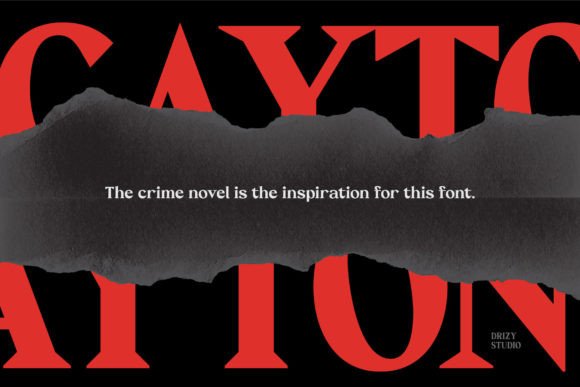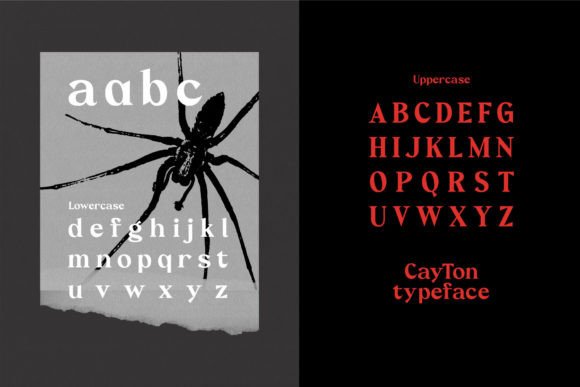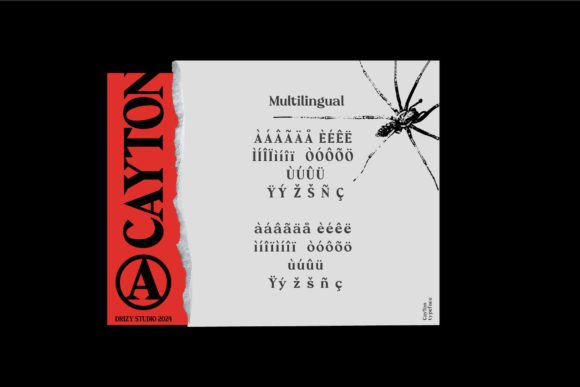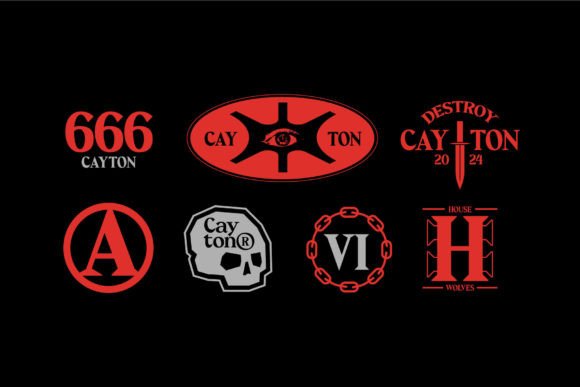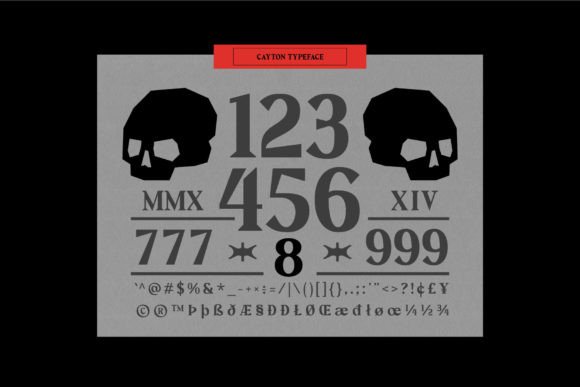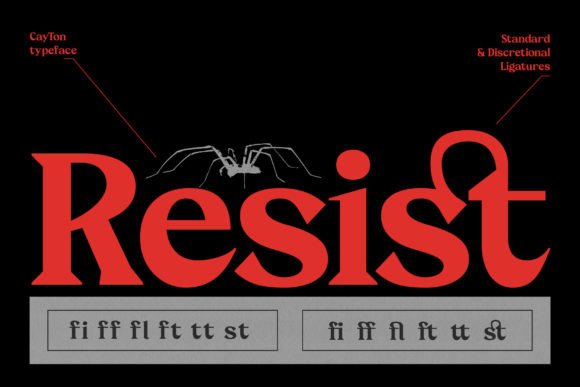
Cayton Font: Unleash the Timeless Elegance of Noir Crime Serif
In the realm of typography, few fonts manage to evoke the essence of a bygone era as effectively as Cayton. This vintage sharp serif font is an ode to the classic noir crime novels and cinematic masterpieces that have captivated audiences for decades. With its distinctive letterforms and sharp serifs, Cayton exudes an aura of suspense and sophistication, making it the perfect typeface for designers and crafters seeking to infuse their projects with a touch of noir elegance.
The Inspiration Behind Cayton
Cayton draws inspiration from the iconic typography of the 1940s and 1950s, an era when film posters, book covers, and pulp magazines often featured bold, serif fonts that commanded attention. The font’s design is reminiscent of the classic crime novels of Raymond Chandler and Dashiell Hammett, as well as the cinematic masterpieces of film noir. Cayton’s creators aimed to distill the essence of this bygone era into a modern font that would be both nostalgic and versatile.
Cayton’s design is characterized by its sharp serifs, distinctive letterforms, and elegant lines. The font features:
- Sharp Serifs: Cayton’s serifs are sharp and refined, adding a touch of sophistication to any design.
- Distinctive Letterforms: The font’s letterforms are uniquely designed to evoke the essence of classic crime novels and film noir.
- Elegant Lines: Cayton’s lines are smooth and elegant, making it perfect for designs that require a touch of refinement.
Use Cases for Cayton
Cayton is an incredibly versatile font, suitable for a wide range of design projects, including:
- Film and Theater Posters: Cayton’s noir-inspired aesthetic makes it perfect for promoting films, plays, or musicals with a vintage or crime-themed twist.
- Book Covers: The font’s classic, sophisticated look is ideal for book covers, particularly for crime novels, thrillers, or historical fiction.
- Branding and Packaging: Cayton’s unique blend of elegance and sophistication makes it suitable for luxury brands, high-end products, or bespoke services.
- Digital Media: The font’s legibility and style make it perfect for digital platforms, including social media graphics, video titles, or website headers.
Why Choose Cayton?
Cayton offers a unique combination of style, sophistication, and versatility, making it an excellent choice for designers and crafters seeking a font that can elevate their projects. Here are just a few reasons why Cayton stands out:
- Unique Aesthetic: Cayton’s distinctive design ensures that your projects will stand out from the crowd.
- High Versatility: The font’s adaptability makes it suitable for a wide range of design applications.
- Easy to Read: Cayton’s clear, legible design ensures that your message will be conveyed effectively.
Cayton is a font that embodies the essence of noir crime serif typography, offering a unique blend of sophistication, elegance, and suspense. Whether you’re a designer, crafter, or simply someone who appreciates the art of typography, Cayton is an excellent choice for any project that demands a touch of vintage flair. With its sharp serifs, distinctive letterforms, and elegant lines, Cayton is poised to become a timeless classic in the world of typography.